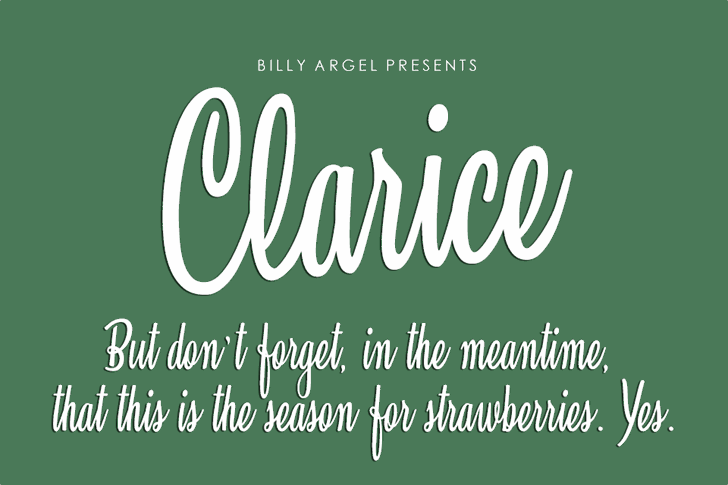
Free Clarice Font
Featuring the impressive free clarice font. Download this typeface from the original source of Font Space. This is absolutely fancy font so you can easily make world-class designs.